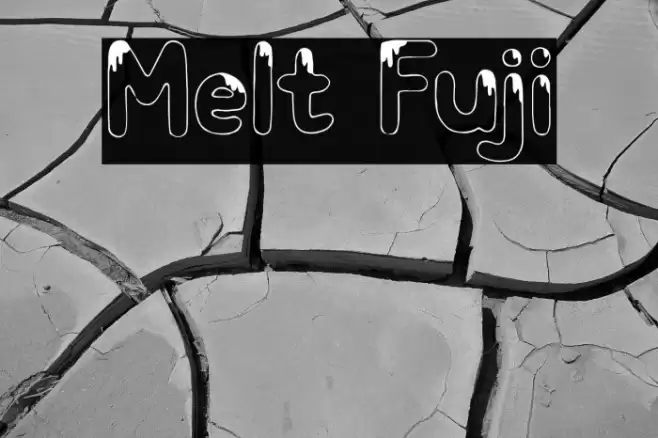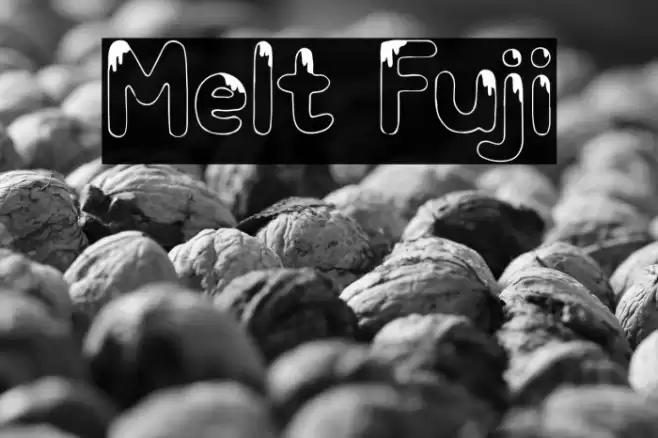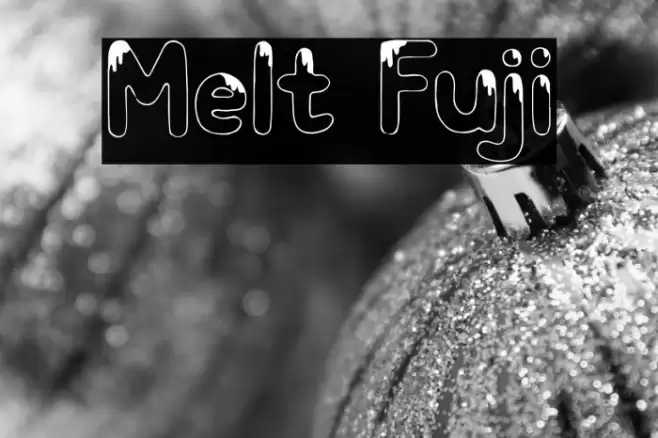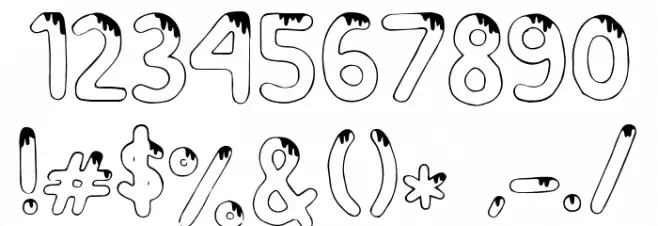
Melt Fuji Font
Melt Fuji Description
This playful and unique font features a melting effect at the top of each character, creating a dynamic and eye-catching appearance. The letters are bold and rounded, with a smooth flow that adds to the whimsical nature of the design. The melting effect gives the impression of fluidity and movement, making it ideal for creative and informal projects. The font maintains legibility while offering a distinctive style that stands out in any context. Its boldness and decorative elements make it suitable for headlines, posters, and branding that require a fun and engaging visual impact.
A playful, melting-effect font with bold, rounded characters from Decorative fonts.
- Proposed Projects: Ideal for creative projects like posters, children's books, branding, and event invitations.